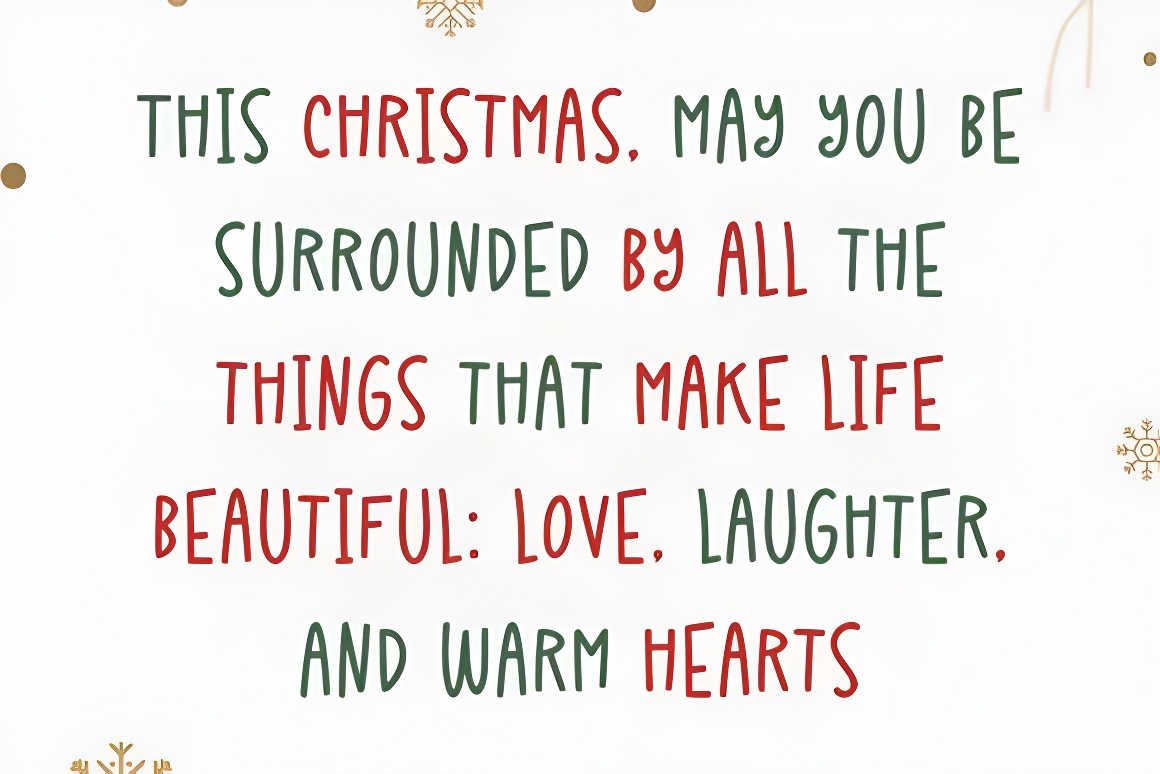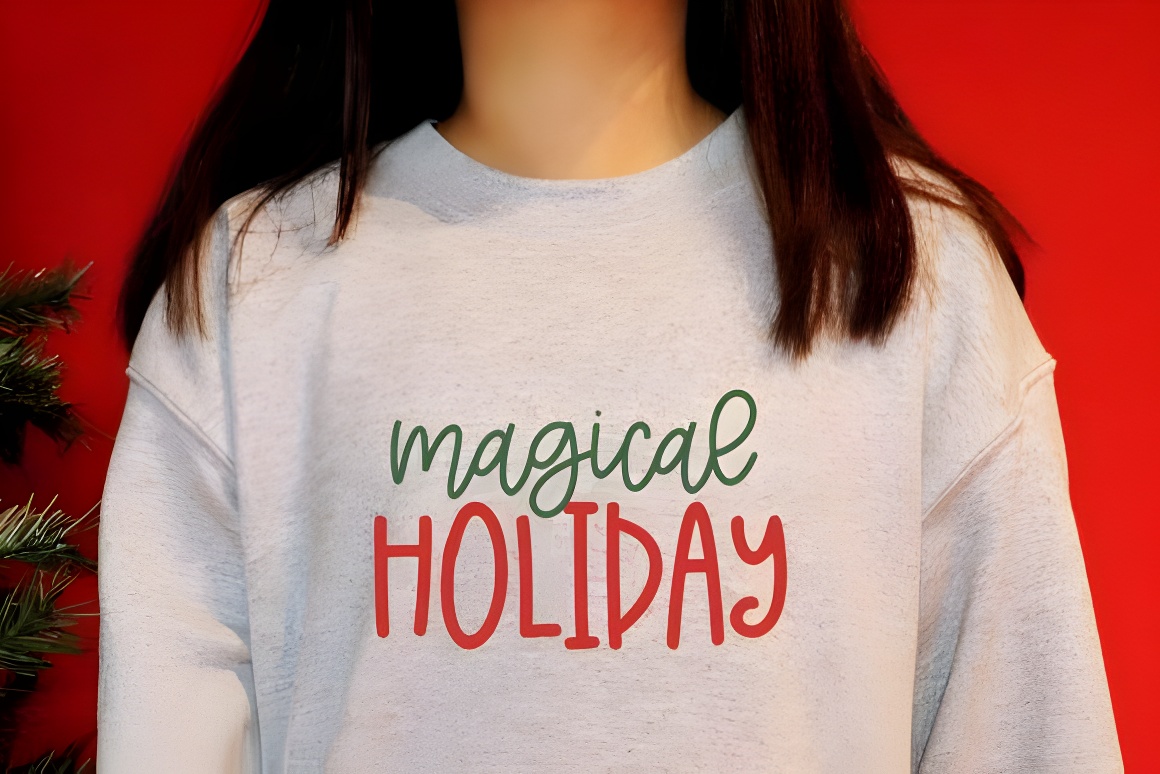
Christmas Delight Font Duo: Festive Serif & Script Font
Festive serif & script font duo perfect for Christmas designs, greeting cards, invitations, apparel & more. Capture holiday spirit with this versatile typeface!